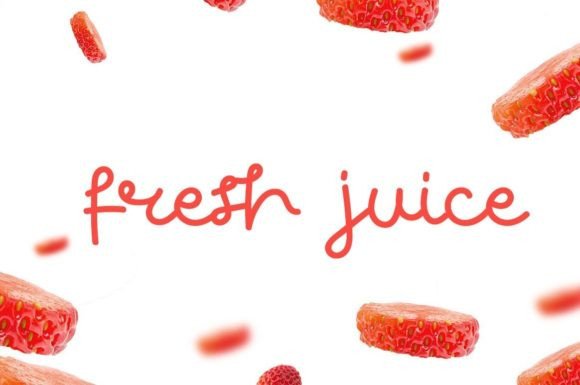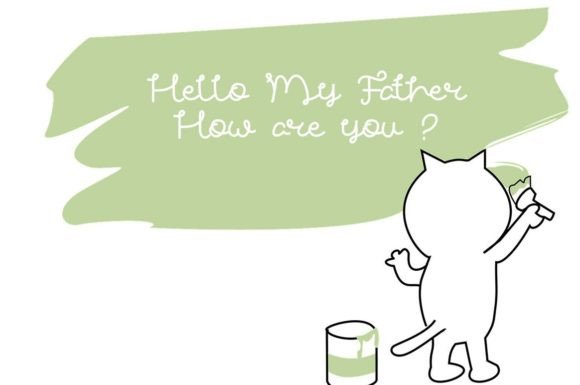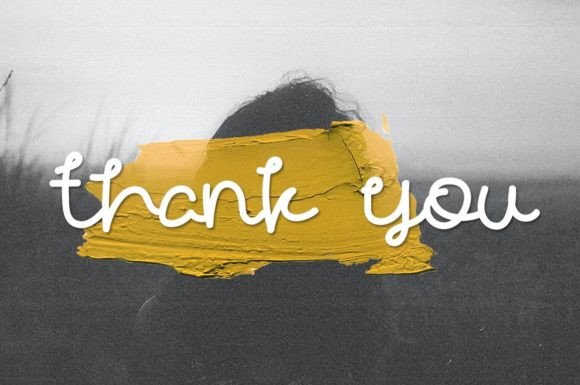
Introduction to June Sweety Font
Have you ever stumbled upon a design that instantly sparks creativity and makes you want to create something new? For me, it’s the moment when I find the perfect font that adds a touch of elegance to my project. Recently, I discovered the June Sweety Font, and I’m hooked! This beautiful handwritten font has been a game-changer for me, and I’m excited to share its awesomeness with you.
June Sweety Font is a high-quality design resource that offers a fresh, clean, and elegant look that’s perfect for both formal and informal projects. Whether you’re working on a free download or a paid design project, this font is sure to add a beautiful touch that will make your business prosper. With its transparent background, you can use it on any creative project that needs a bit of sweetness.
Key Features of June Sweety Font
- June Sweety Font is designed with a unique, playful style, making it suitable for various creative projects
- Each font character is carefully crafted with high resolution, ensuring crisp and clear text display
- Perfect for designers, artists, and writers looking for a free, high-quality design resource
Honest Review: June Sweety Font
I recently stumbled upon the June Sweety Font, and I’m excited to share my thoughts on this design resource. As a designer, I’m always on the lookout for high-quality fonts that can elevate my creative projects.
The June Sweety Font is available for free download, which is a great perk for designers on a budget. The font itself is quite charming, with a sweet and playful vibe that’s perfect for projects that require a touch of whimsy.
Here are some things that work well with the June Sweety Font:
- ✨ High-quality design: The font is well-crafted and has a professional feel to it.
- ✨ Versatile: The font can be used for a wide range of creative projects, from logos to graphics and more.
- ✨ Transparent background: The font has a transparent background, making it easy to place on any background.
- ⚠️ Limited font styles: The June Sweety Font only comes in a few font styles, which may limit its versatility for more complex projects.
- ⚠️ Not suitable for formal projects: The font’s playful vibe may not be suitable for more formal or professional projects.
Overall, the June Sweety Font is a great addition to any designer’s toolkit. While it may have some limitations, its high-quality design and versatility make it a valuable resource for creative projects.
Common Use Cases for June Sweety Font
The June Sweety Font is perfect for a variety of creative projects, including invitations, brochures, and social media graphics. Its high-quality design and transparent background make it ideal for use in a range of design applications.